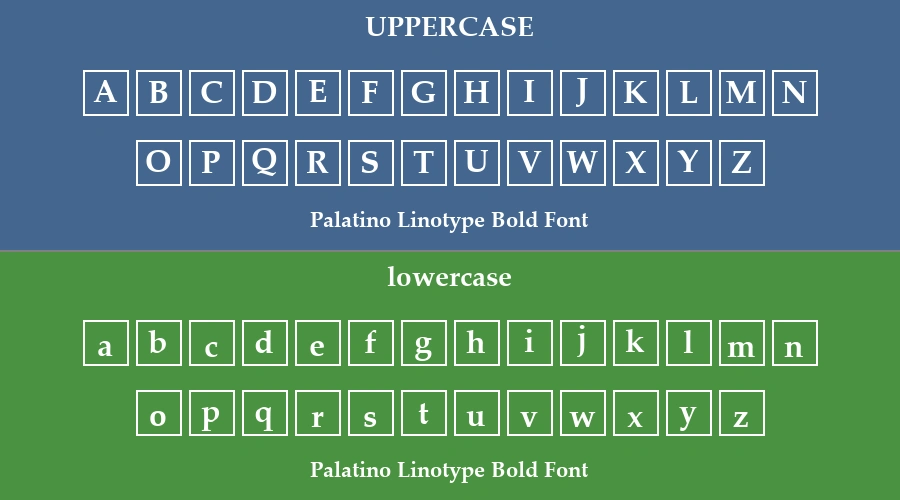
About Palatino Linotype Bold Font
Palatino Linotype Bold Font represents a sophisticated approach to type design, balancing structural clarity with typographic color. Perfect for heritage brands, this font family showcases impressive durability and cultural resonance throughout its character set. Designers appreciate its versatility and reliability.
Designers will appreciate nuanced touches including measured spacing and proportional figures, adding sophistication to any project. These features become apparent in event graphics, where reliability matters most. The careful treatment of aperture size and emotional resonance ensures optimal performance.